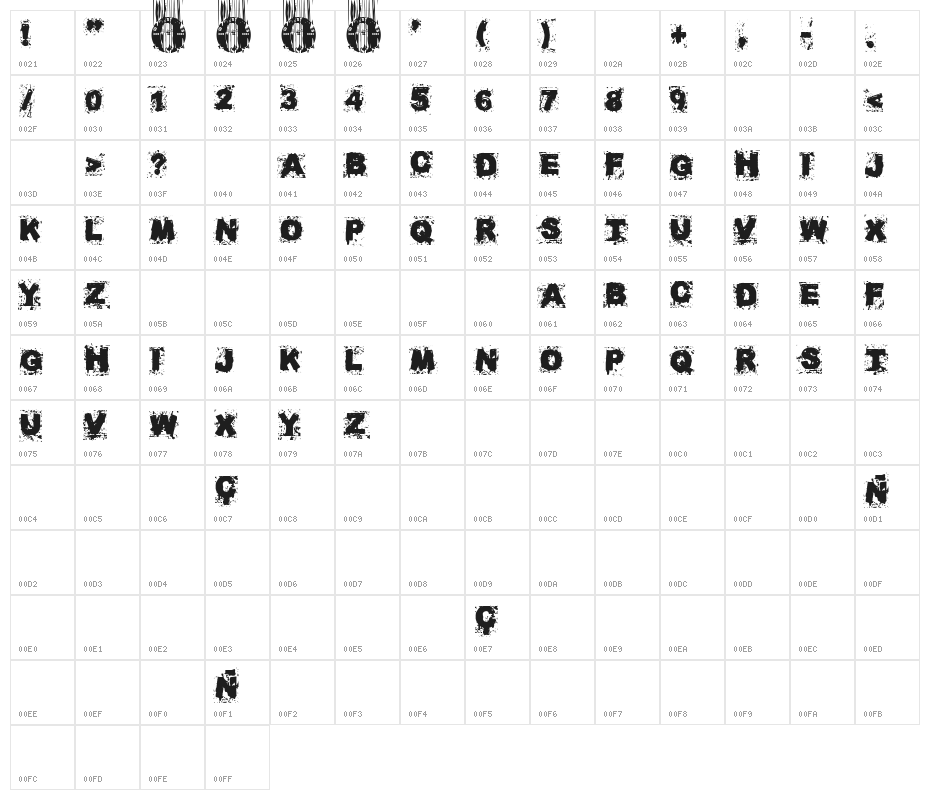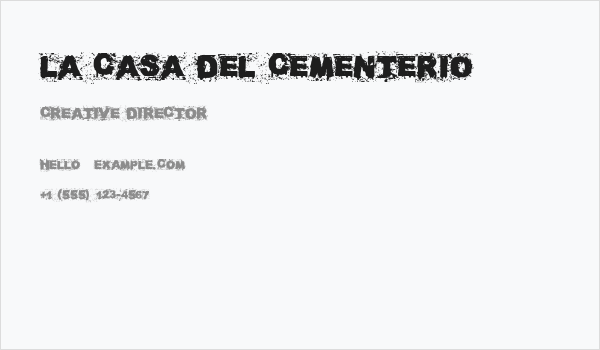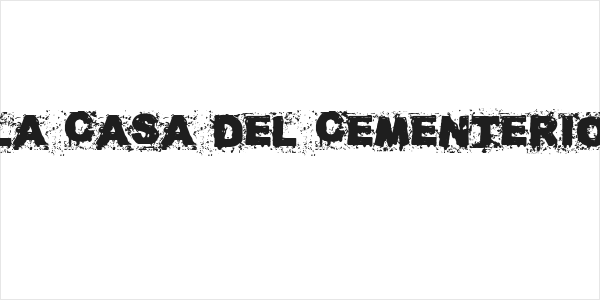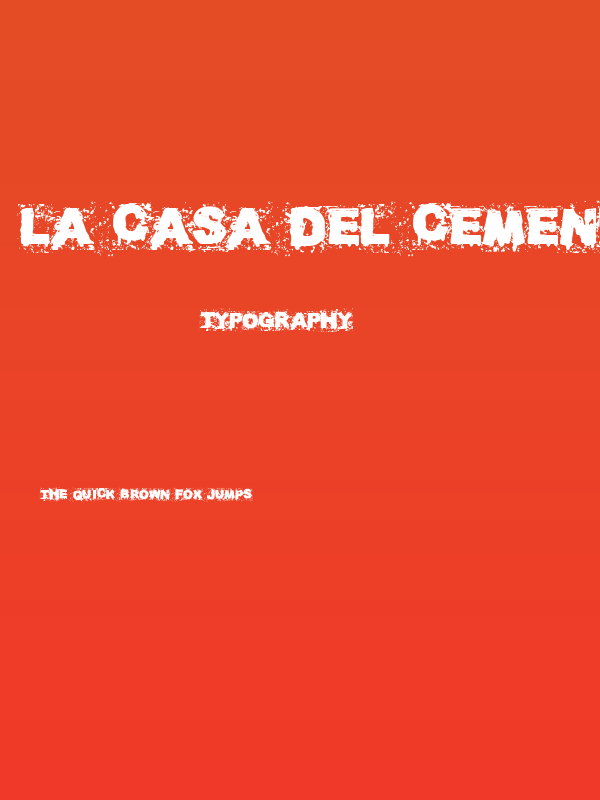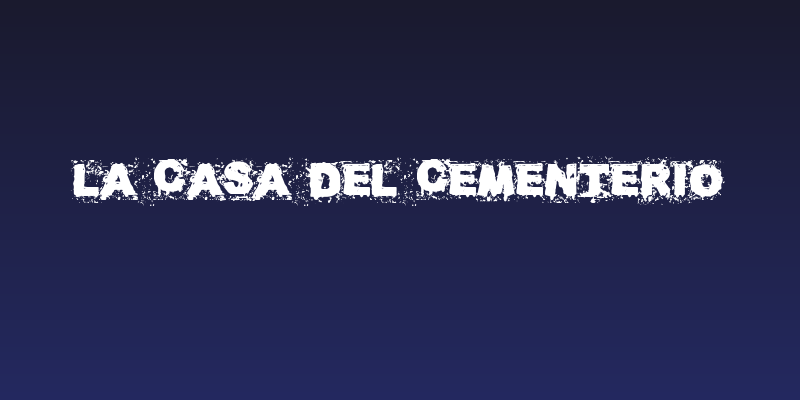
La Casa del Cementerio Font
La Casa del Cementerio Description
This font features a distressed, grunge style with a bold and heavy appearance. The characters are designed with a rough, textured effect that gives them a worn and weathered look, reminiscent of old, decaying surfaces. The uppercase and lowercase letters maintain a consistent style, with each character appearing as if it has been eroded or corroded over time. The numbers and special characters follow the same aesthetic, ensuring a cohesive look across all elements. This font's unique style makes it stand out, providing a dramatic and edgy feel.
| Overall Style | Grunge, Distressed |
| Use Case | Headlines, Posters, Album covers |
| Proposed Projects | Ideal for horror-themed posters, album covers, or any project requiring a gritty, aged look. |